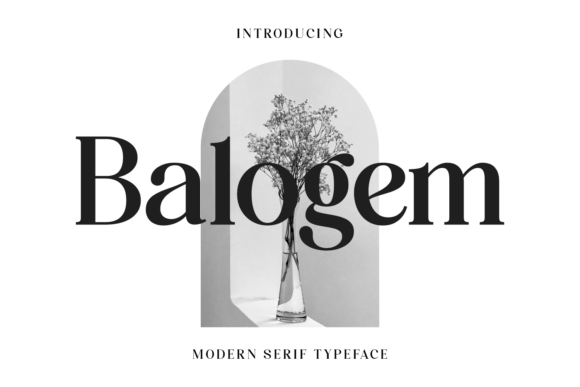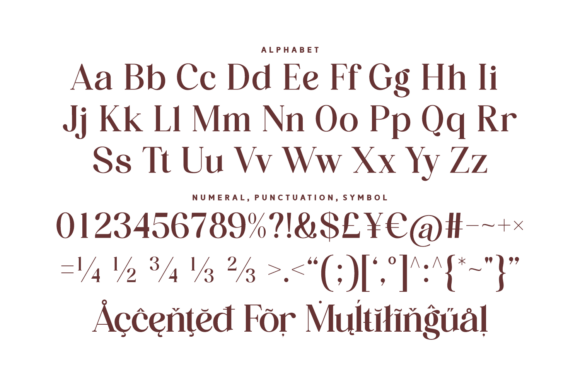
Discover the Elegance of Balogem Font
As a designer, you’ve likely found yourself staring at a blank page, trying to bring a project to life. The cursor blinks, and your mind is a jumble of ideas, fonts, and colors. Suddenly, a spark of creativity strikes – the perfect typography to tie everything together. For me, that moment often begins with a font that exudes sophistication and elegance.
Enter Balogem Font, a modern serif typeface designed to elevate your designs to new heights. With its minimalist aesthetic and bold, black text, Balogem Font adds a touch of artistic flair to any project. Whether you’re working on a magazine spread, a logo, or a website, this versatile font is sure to make a lasting impression. As a valuable addition to any designer’s toolkit, Balogem Font is a game-changer for those looking to take their designs to the next level.
Balogem Font Key Features
- Size: The font family consists of 6 weights (Thin, Light, Regular, Medium, Bold, Black), providing users with a versatile range of styles to suit their design needs.
- Unique Characteristics: The font features a distinctive blend of geometric and organic elements, resulting in a unique aesthetic that is both modern and elegant.
- Language Support: Balogem Font supports a wide range of languages, including Latin, Cyrillic, and Greek scripts, making it a great choice for global branding and design projects.
Balogem Font Review
I recently had the chance to work with the Balogem Font, and I wanted to share my honest thoughts on this font family. Here’s what I liked and what I didn’t.
- The Balogem Font is a versatile family with a wide range of weights and styles, making it perfect for various design projects.
- The font has a modern and sleek aesthetic, which is ideal for contemporary designs.
- The Balogem Font is highly legible, even at smaller font sizes, making it a great choice for body text.
- The font may not be the best choice for traditional or formal designs, as it has a more modern and edgy feel.
- The Balogem Font can be a bit too bold and attention-grabbing, which may not be suitable for designs where subtlety is key.
- The font family is relatively new, so it may not be as widely supported as more established font families.
Overall, I was impressed with the Balogem Font’s versatility and modern aesthetic. While it may not be the best choice for every design project, it’s a great option for contemporary and edgy designs. With its wide range of weights and styles, it’s definitely worth considering for your next project.
Balogem Font Practical Application Guide
For best results, use Balogem font in bold or italic styles to add emphasis to your text.
- Typography for creative projects, such as posters, flyers, and brochures.
- Branding and marketing materials, such as logos and business cards.
- Designing for social media, such as Instagram captions and Facebook posts.
Alternative Fonts to Balogem Font
Akira Expanded
Akira Expanded is a sans-serif font that offers a clean and modern look. It is ideal for use in digital products, apps, and websites where a clear and readable font is necessary. Akira Expanded is more versatile than Balogem Font, with a wider range of weights and styles available.
Comparison to Balogem Font: While Balogem Font has a unique, hand-drawn feel, Akira Expanded is more streamlined and modern. Akira Expanded is better suited for digital products, while Balogem Font is often used for print materials.
Montserrat is a geometric sans-serif font that is highly legible and versatile. It is suitable for use in a variety of contexts, from print materials to digital products. Montserrat is more elegant and refined than Balogem Font, with a more precise and modern feel.